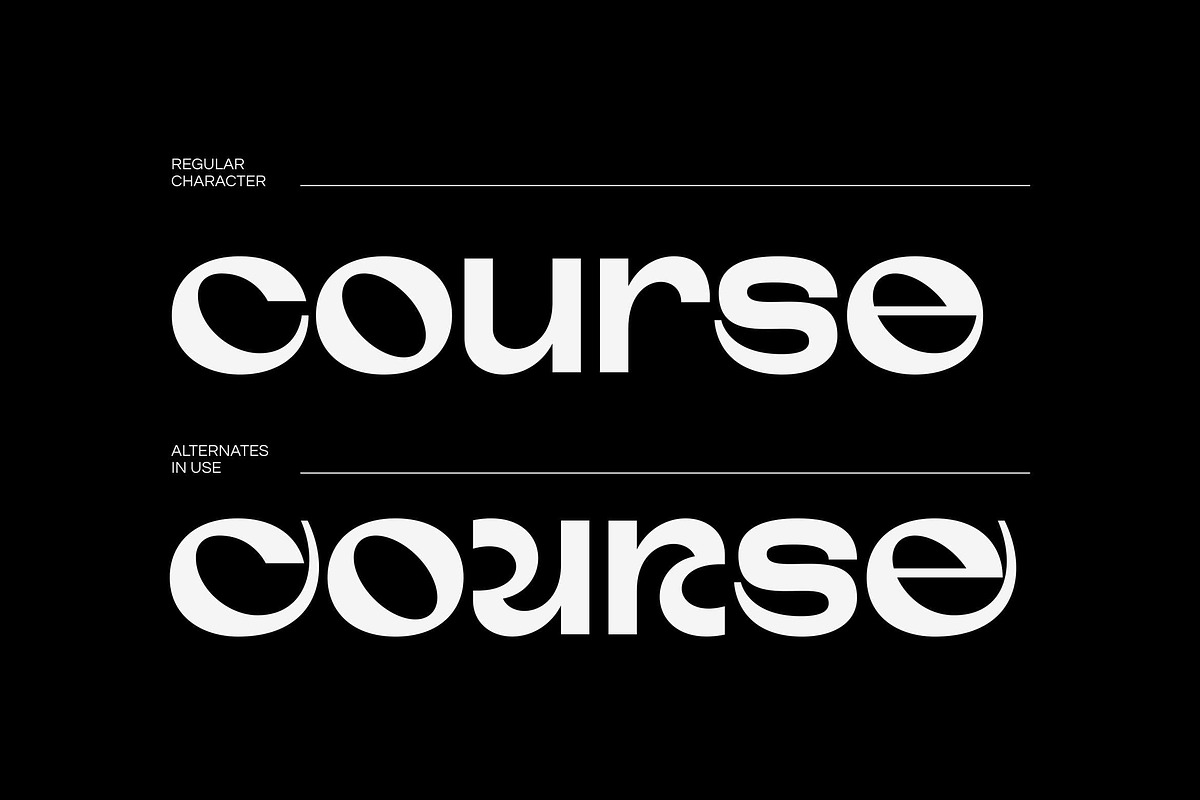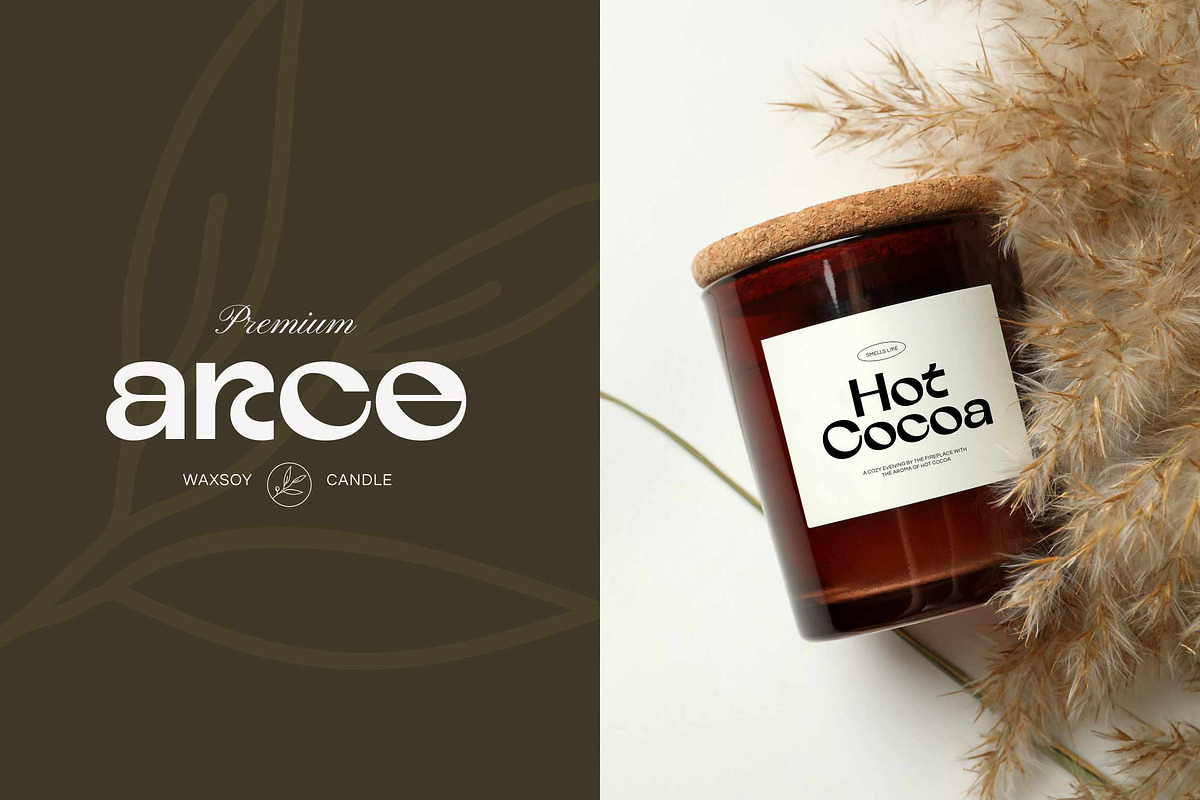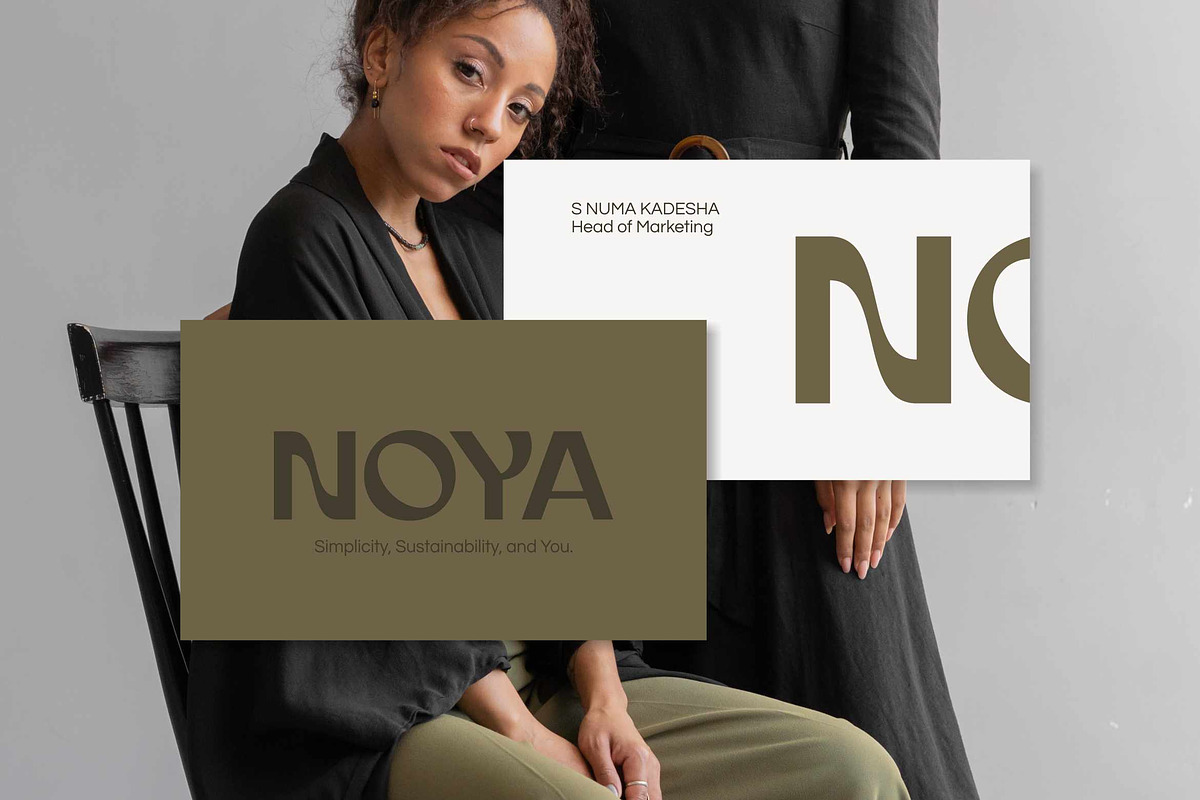
Atelier is a clean modern display font that expertly bridges the gap between rigid geometric structure and “liquified” organic fluidity. It is designed for creators who need their typography to do the heavy lifting in a brand’s visual identity.
Drawing inspiration from mid century modernism and contemporary experimental type, Atelier features modern geometric style with a distinctive futuristic and experimental touch.
Atelier is a sleek and versatile sans serif, designed and perfect for logos, product packaging, headline, website header, posters, editorials, magazines, luxury packaging, sophisticated titles, fashion, beauty, and premium branding.